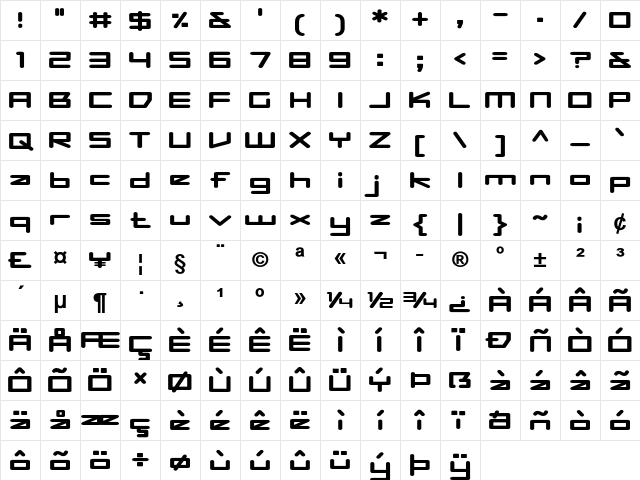
Tedio Bold Free Font
Tedio Bold
Tedio Family
Tedio Bold
Complete Tedio Bold glyph index. Displaying only characters natively supported by Tedio Bold font.
Design Context for Tedio
Tedio is a composed and adaptable typeface that performs quietly and consistently across a wide range of design contexts. Its bold stroke weight gives it real presence on the page.